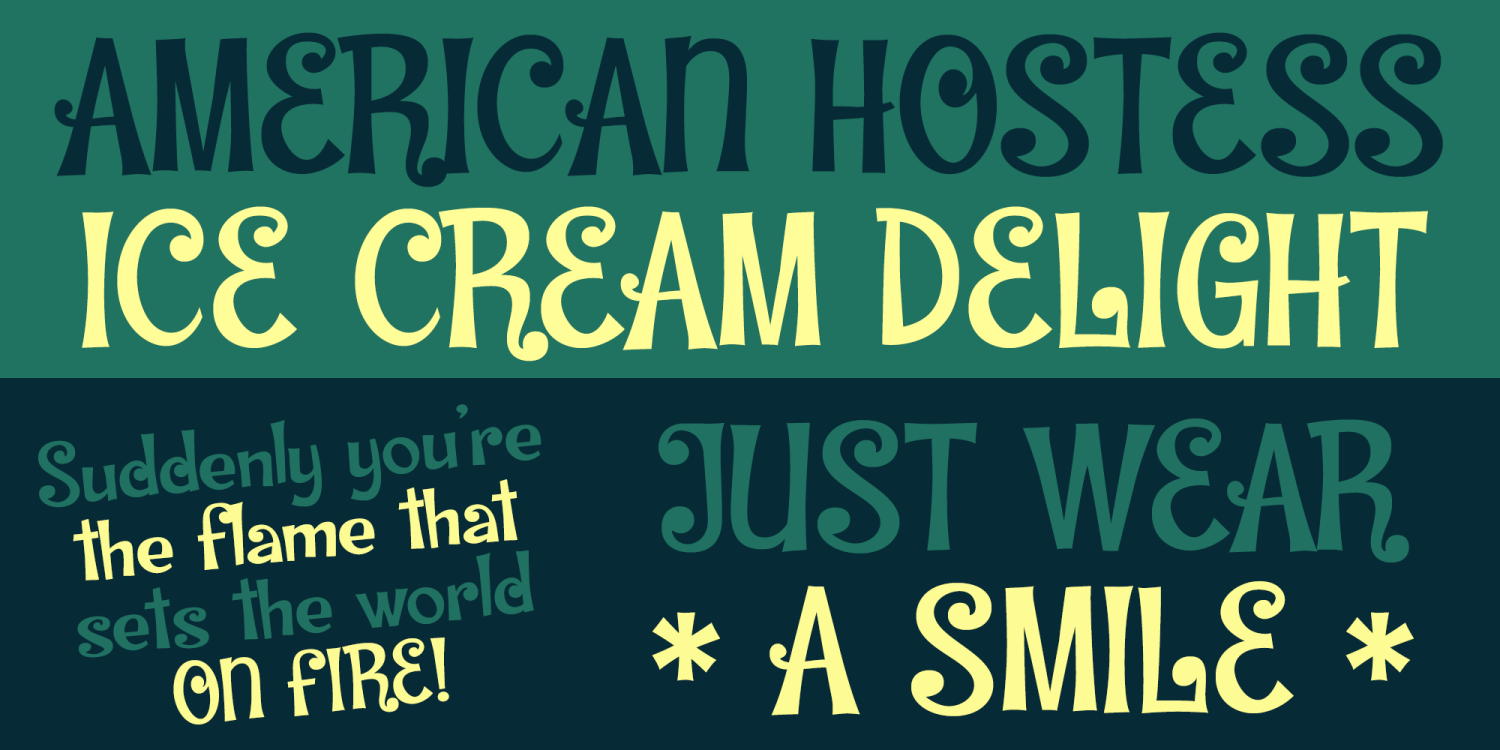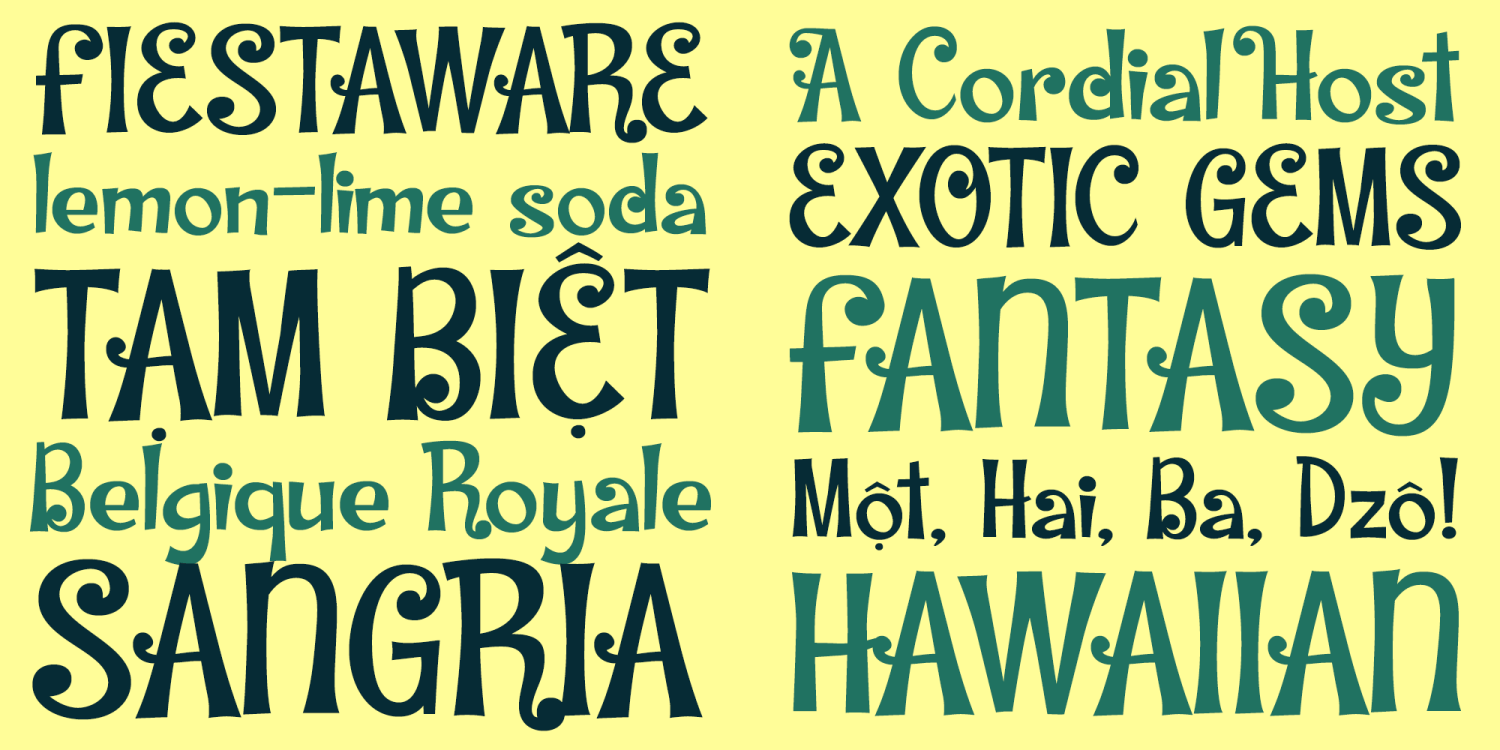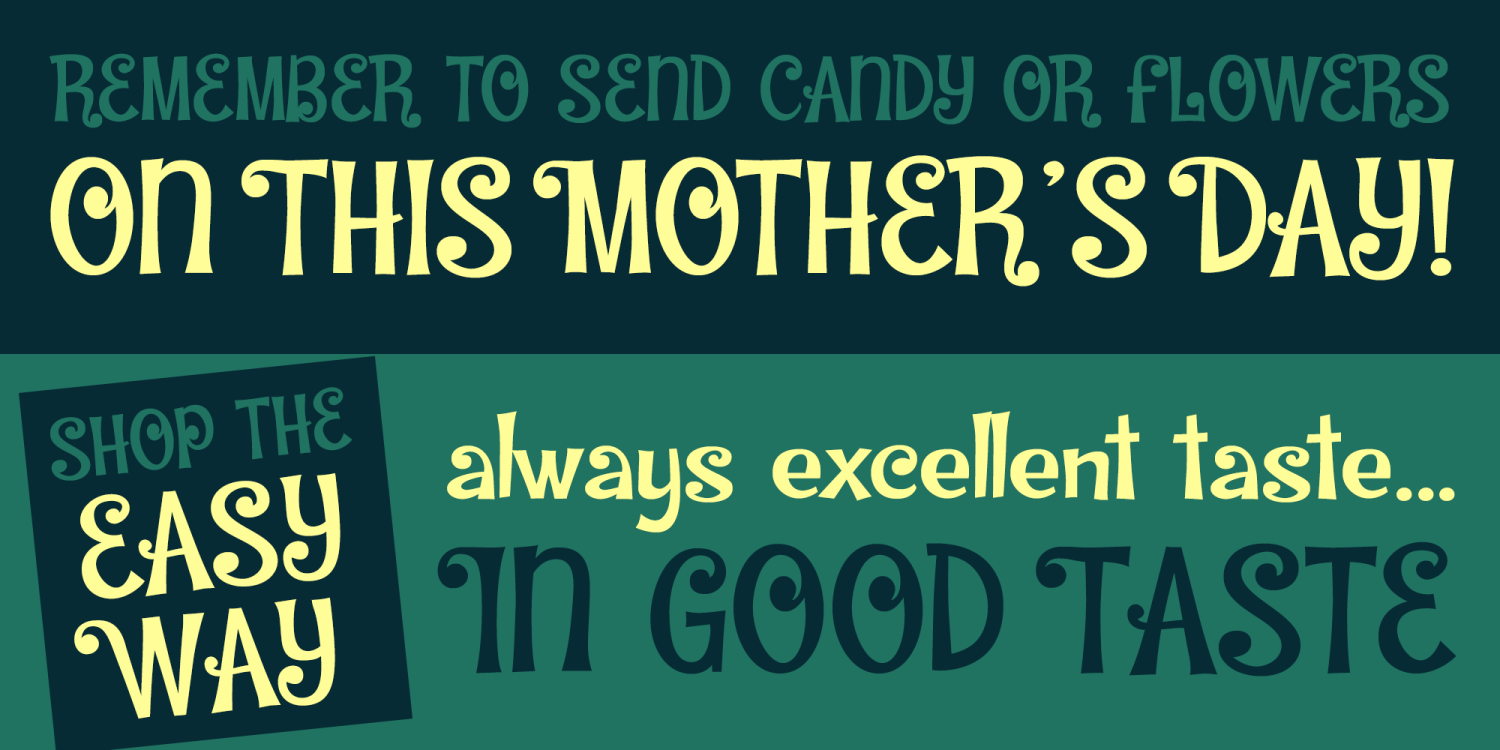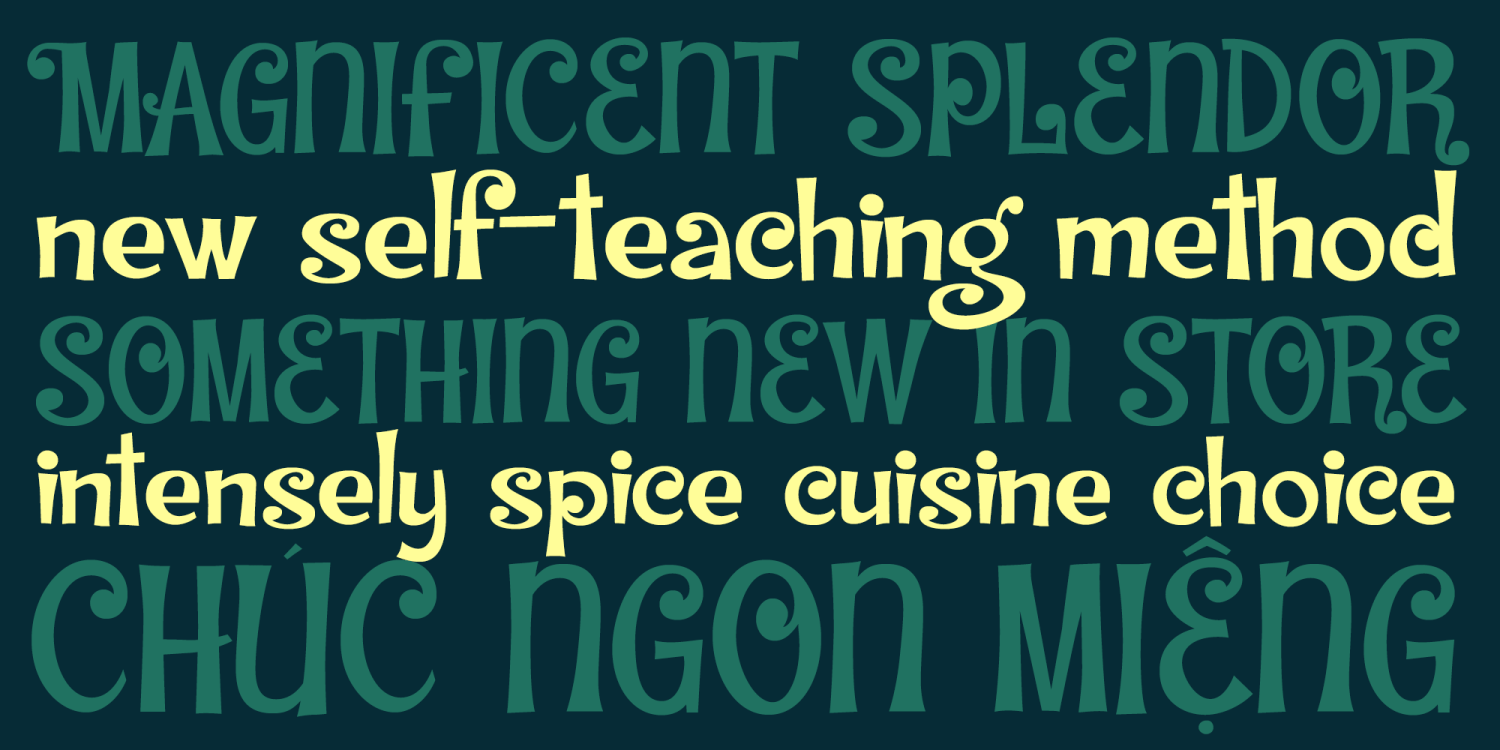
Frantix is the frolicking, festive face your design project craves! It's full of fun and frivolity and sure to please even the most fervent of font aficionados! Turn on Swashes (Opentype Feature) for a swapped out collection of Swash Capital Alternates.…